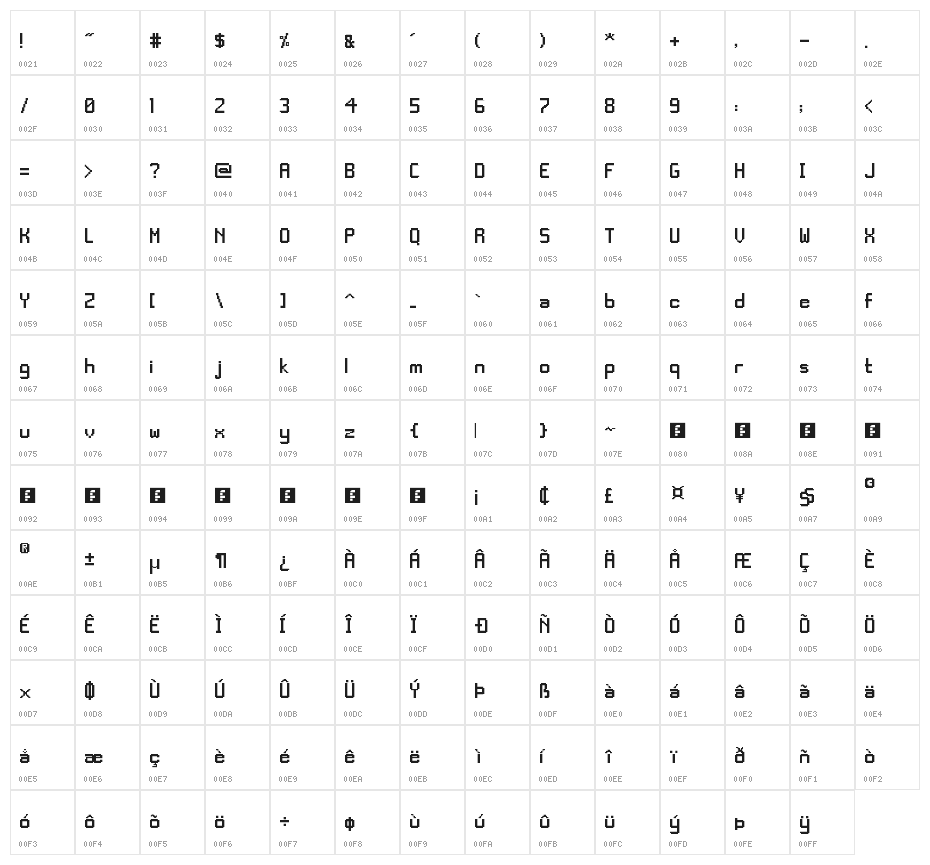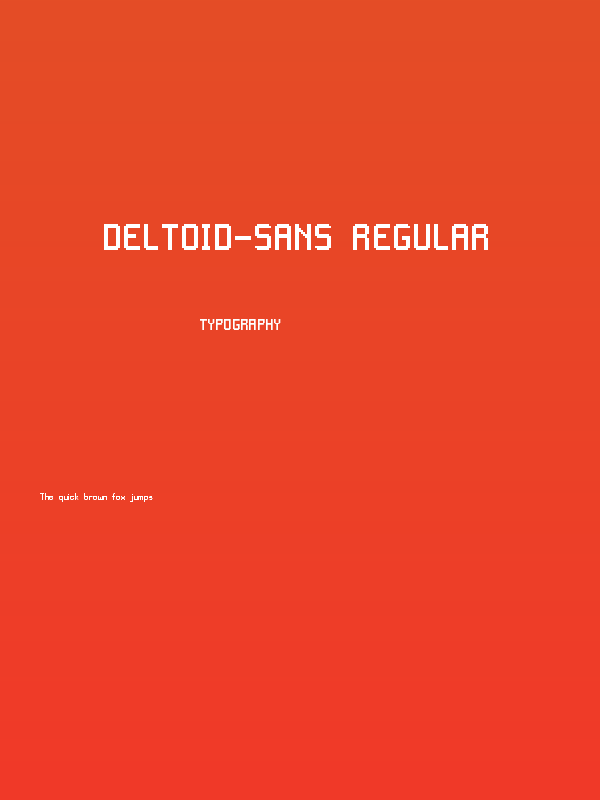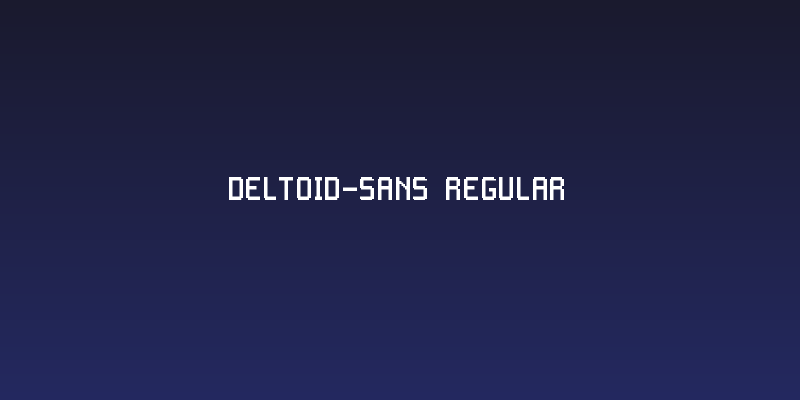
Deltoid-sans Regular Font
Deltoid-sans Regular Description
This font features a pixelated, geometric design that is reminiscent of early digital displays and video games. The characters are constructed with a grid-like precision, giving them a blocky and retro aesthetic. Each letter and number is distinct, with sharp angles and a consistent height, contributing to a uniform appearance. The font maintains a clean and straightforward look, making it easily legible even at smaller sizes. Special characters are included, matching the overall style with their angular and structured form. This font's simplicity and nostalgic feel make it a versatile choice for various design projects.
| Overall Style | Retro |
| Use Case | Headlines, Logos, Digital displays |
| Proposed Projects | Ideal for retro-themed designs, video game graphics, digital displays, and tech-related branding. |